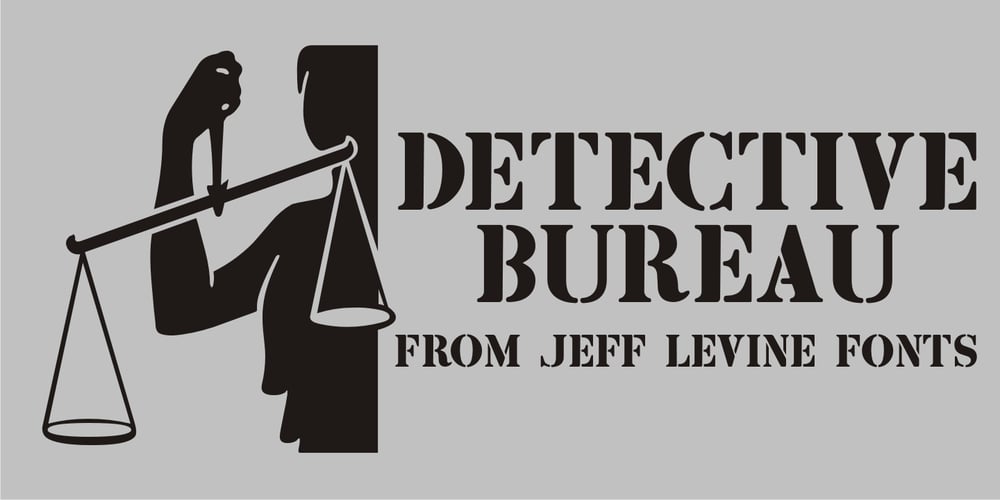
Detective Bureau JNL Font Family was designed by Jeff Levine and published by Jeff Levine. Detective Bureau JNL contains 1 styles and family package options. Traditional stencil type faces have always projected images of strength, power, police, military or industry. The hand-lettered title card for 1951’s “Detective Story” (directed by William Wyler) is a perfect example of this. A bold Roman letter style, it was the perfect inspiration for Detective Bureau JNL.